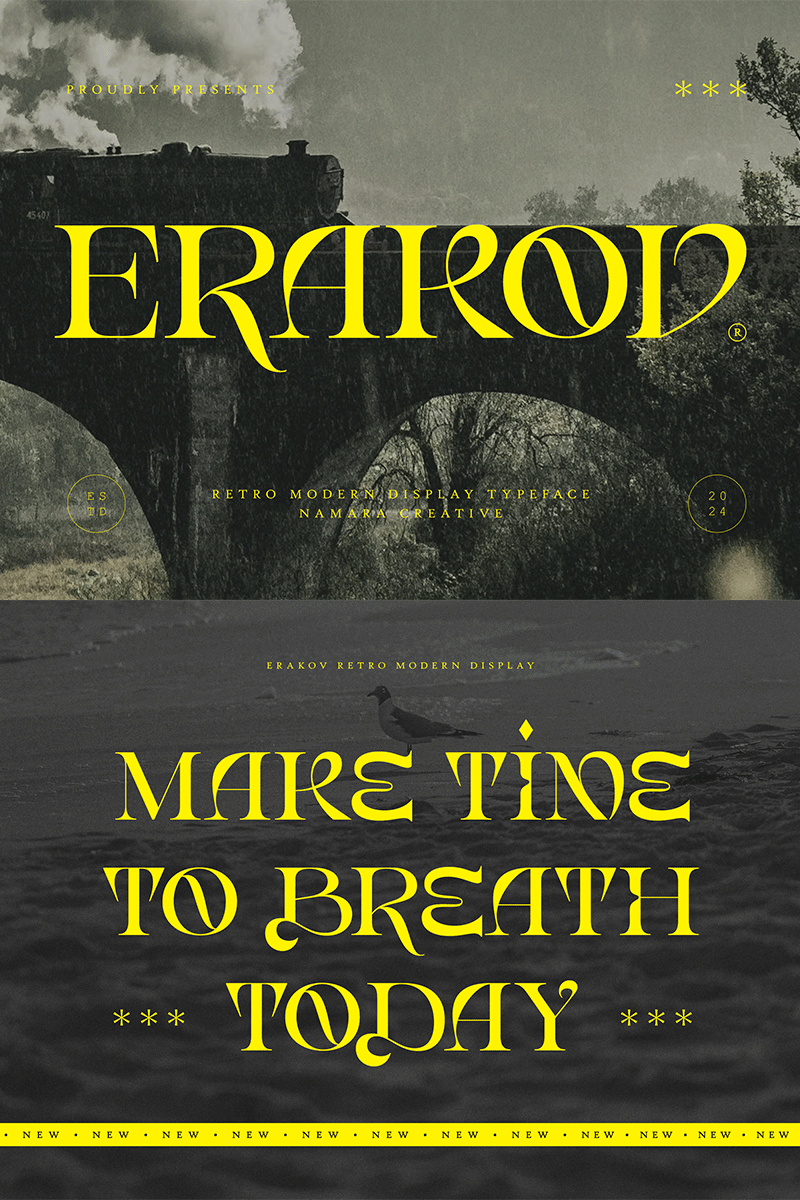
Preview and download Erakov Font. Created by Namara Creative in Basic Serif styles with Free for personal use license.
Retro modern serif display font, Embrace a typeface that encapsulates the essence of retro charm and modern minimalism. Whether you�re looking to evoke nostalgia or convey contemporary elegance, this font is your go-to solution for achieving that perfect balance. NOTE : - To use this font, please purchase license here https://onedsgn.com/product/erakov-display/ - Please note that using this font without purchasing the proper license will result in a 5x charge for the Worldwide License. |